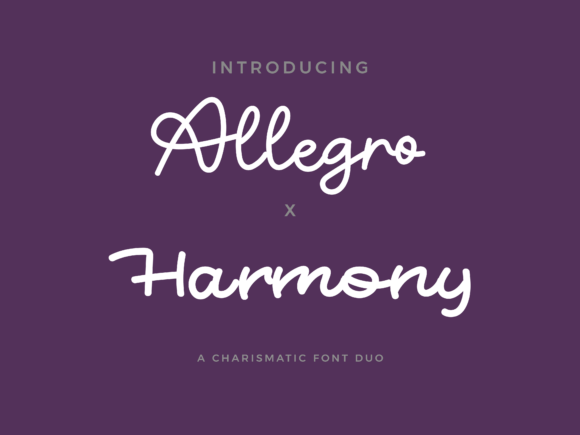
Allegro X Harmony Duo Font: Elevate Your Designs with Elegant Handwritten Flair
In the world of typography, few font combinations manage to strike a balance between elegance and authenticity. However, the Allegro X Harmony Duo Font stands out as a remarkable exception. This attractive font duo brings beautifully cursive, handwritten flair to your design projects, making it an ideal choice for creatives looking to add a touch of sophistication and whimsy to their work.
Allegro and Harmony are more than just fonts; they are a design experience. Their distinctive and versatile nature allows them to seamlessly merge elegance and authenticity, transforming ordinary text into artistic phrases filled with personality. Whether you’re adorning a wedding invitation, crafting a memorable logo, or elevating your social media posts, Allegro and Harmony’s unique charm will unquestionably add a whimsical flourish to your creations.
Key Features of Allegro X Harmony Duo Font
- Beautifully Cursive and Handwritten: Allegro and Harmony boast elegant cursive and handwritten styles that add a touch of sophistication to any design project.
- Distinctive and Versatile: These fonts are designed to be versatile, making them suitable for a wide range of applications, from wedding invitations to social media graphics.
- Elegance and Authenticity: The combination of elegance and authenticity in Allegro and Harmony makes them stand out, allowing designers to create unique and captivating text.
- Crafted with Love and Attention to Detail: Each font is meticulously crafted with love and attention to detail, radiating a sense of warmth and passion that translates into the designs.
Design Applications for Allegro X Harmony Duo Font
The Allegro X Harmony Duo Font is incredibly versatile, making it suitable for various design applications. Here are some of the ways you can use these enchanting fonts:
- Wedding Invitations: Add a touch of elegance and romance to your wedding invitations with the beautiful cursive and handwritten styles of Allegro and Harmony.
- Logo Design: Create memorable and captivating logos that stand out with the unique charm of Allegro and Harmony.
- Social Media Graphics: Elevate your social media posts with the whimsical flourish of Allegro and Harmony, making your content more engaging and visually appealing.
- Stationery and Packaging: Enhance your stationery and packaging designs with the delightful cursive and handwritten nuances of these fonts, adding a personal touch to your brand.
Typography Tips for Using Allegro X Harmony Duo Font
To make the most of the Allegro X Harmony Duo Font, consider the following typography tips:
- Mix and Match: Experiment with combining Allegro and Harmony to create visually appealing text hierarchies and add depth to your designs.
- Play with Colors: Take advantage of the fonts’ versatility by experimenting with different colors that complement your design’s aesthetic.
- Pay Attention to Spacing: Ensure that your text is easy to read by paying attention to spacing and kerning, especially when using cursive and handwritten fonts.
- Emphasize with Style: Use the unique styles of Allegro and Harmony to emphasize key messages or create focal points in your designs.
Pairing Allegro X Harmony Duo Font with Other Fonts
While Allegro and Harmony are stunning on their own, they can also be paired with other fonts to create interesting and dynamic text combinations. Here are some tips for pairing these fonts:
- Contrasting Fonts: Pair Allegro and Harmony with sans-serif fonts for a striking contrast that highlights the elegance of the cursive and handwritten styles.
- Complementary Scripts: Combine Allegro and Harmony with other script fonts to create a harmonious and cohesive look, especially for designs that require a more decorative approach.
- Serif Fonts: For a classic and sophisticated look, pair Allegro and Harmony with serif fonts, creating a balanced and visually appealing design.
Inspiration Gallery: Designs Featuring Allegro X Harmony Duo Font
To spark your creativity, here are some inspiring designs that showcase the beauty and versatility of the Allegro X Harmony Duo Font:
The Allegro X Harmony Duo Font is a powerful tool for designers looking to add elegance, authenticity, and a touch of whimsy to their projects. With its beautifully cursive and handwritten styles, distinctive and versatile nature, and the ability to seamlessly merge elegance and authenticity, this font duo is sure to transform your designs. Whether you’re working on wedding invitations, logos, social media graphics, or any other design project, Allegro and Harmony will undoubtedly add a unique charm that captivates your audience.
Embellish your work with the enchanting allure of Allegro and Harmony – the perfect blend of delightful cursive and handwritten nuances. Experience the difference that high-quality, creatively crafted fonts can make in your designs.